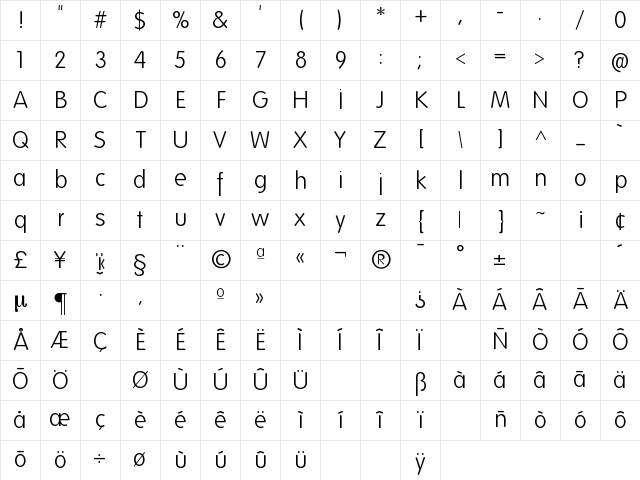
Folks-Light Regular Free Font
Folks-Light Regular
Design Context for Folks-Light
Folks-Light is a composed and adaptable typeface that performs quietly and consistently across a wide range of design contexts. Its slender proportions lend an understated elegance to any composition.